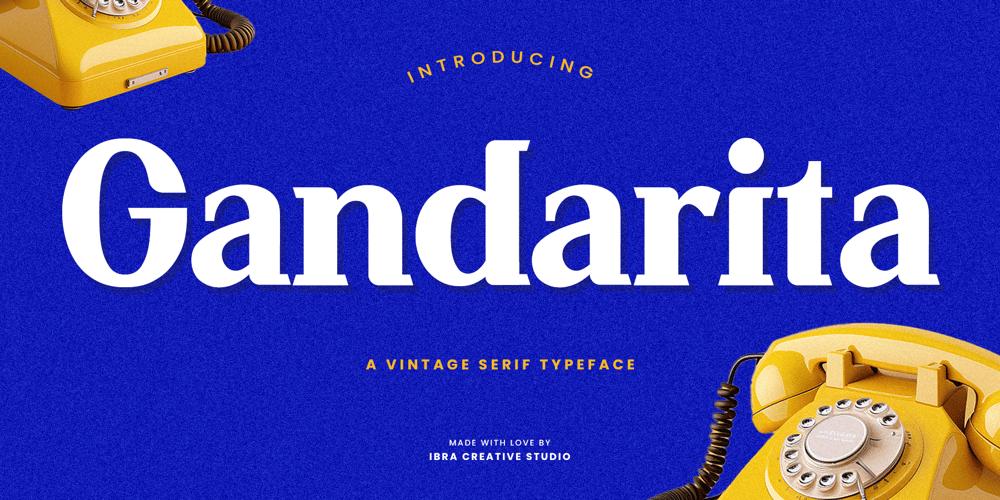
Gandarita Font Family was designed by Roisatul Azizah and published by IbraCreative. Gandarita contains 1 styles and family package options. Gandarita, a vintage serif typeface, exudes timeless elegance and sophistication. With its carefully crafted letterforms, inspired by classic typography, Gandarita seamlessly blends tradition with a contemporary flair. The typeface boasts distinctive serifs that evoke a sense of refinement and nostalgia, making it an ideal choice for projects that require a touch of vintage charm. Its balanced proportions and intricate details lend a sense of authenticity, capturing the essence of bygone eras while maintaining a versatile appeal for a wide range of design applications. Whether used for editorial layouts, branding, or signage, Gandarita imparts a sense of enduring style, making it a standout choice for those seeking a classic serif typeface with a hint of character and sophistication.